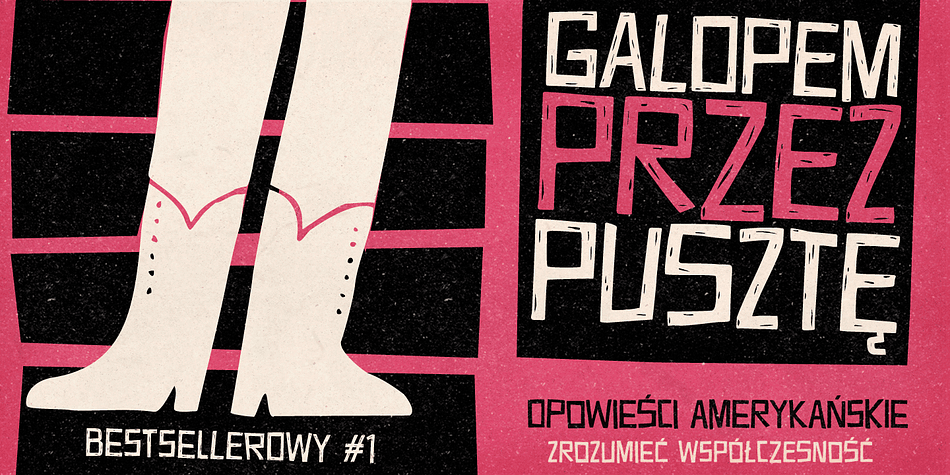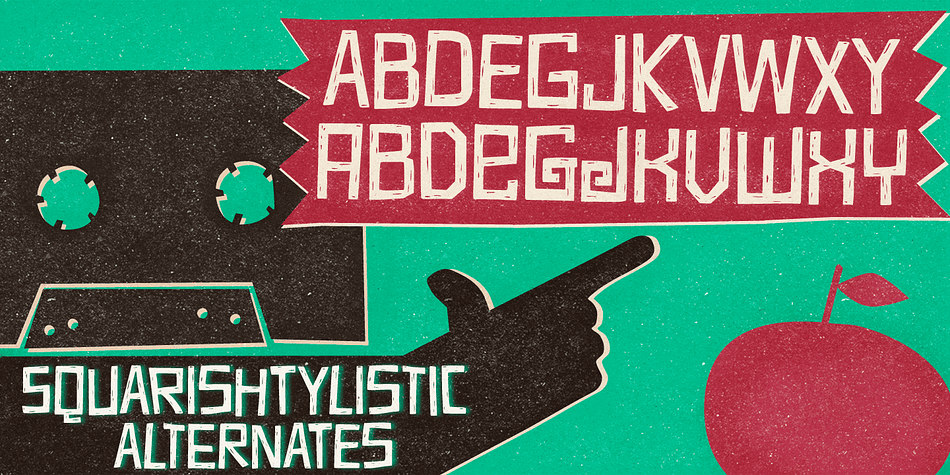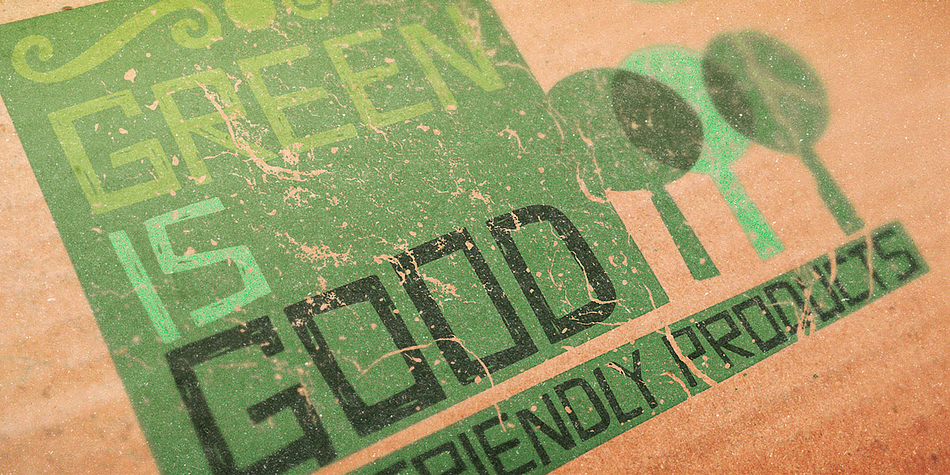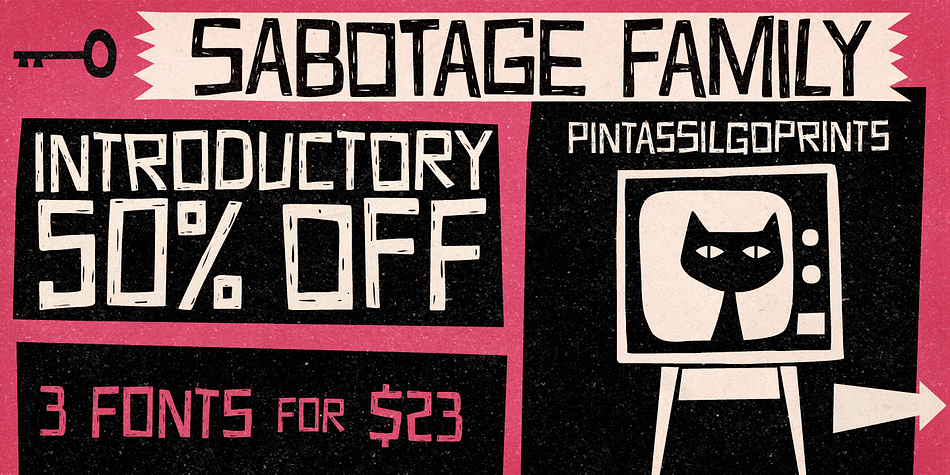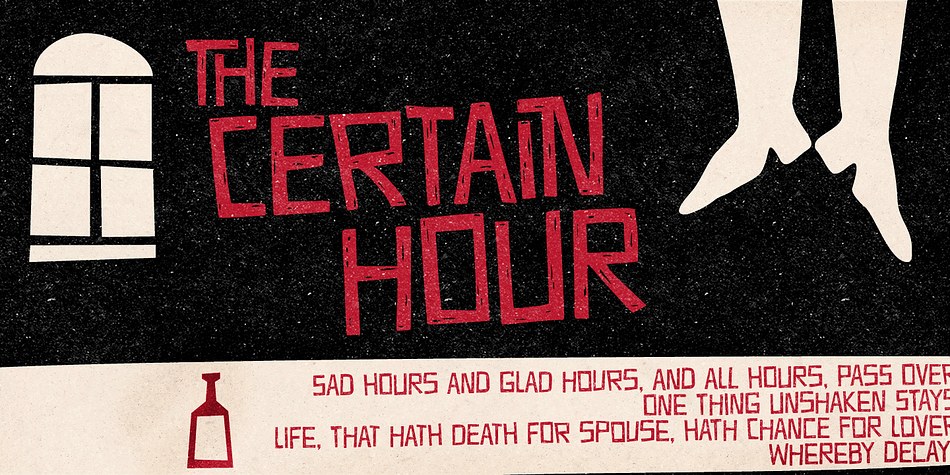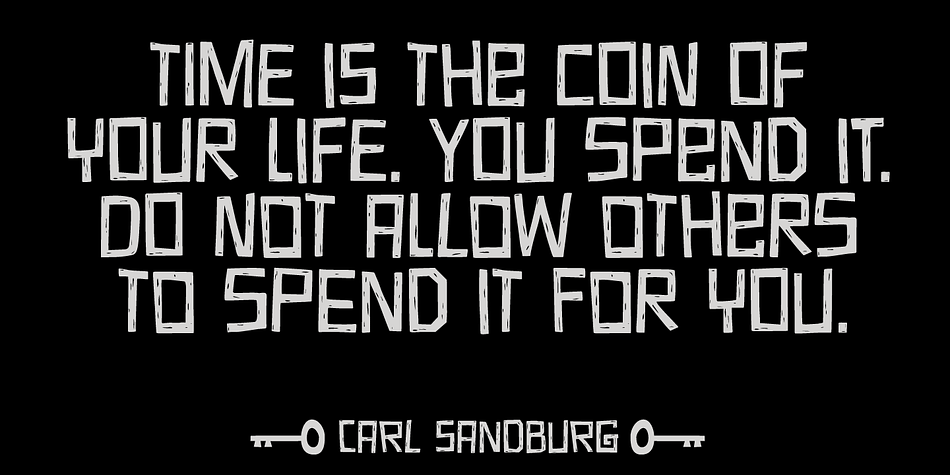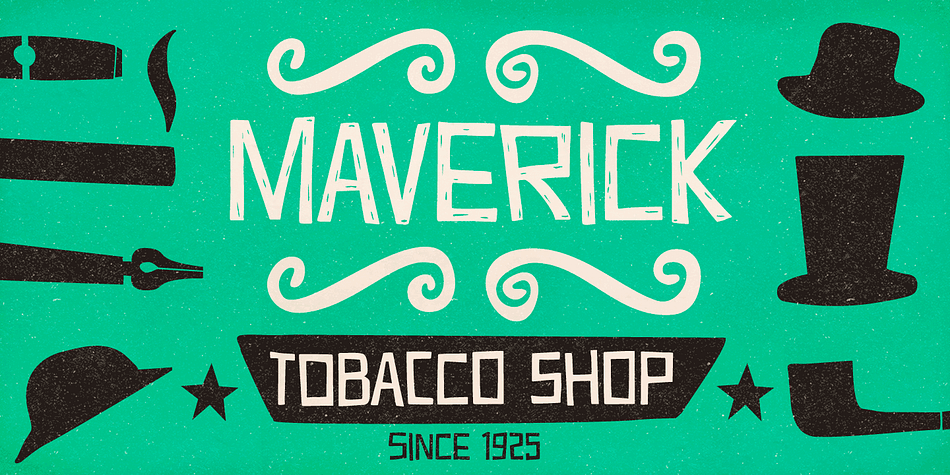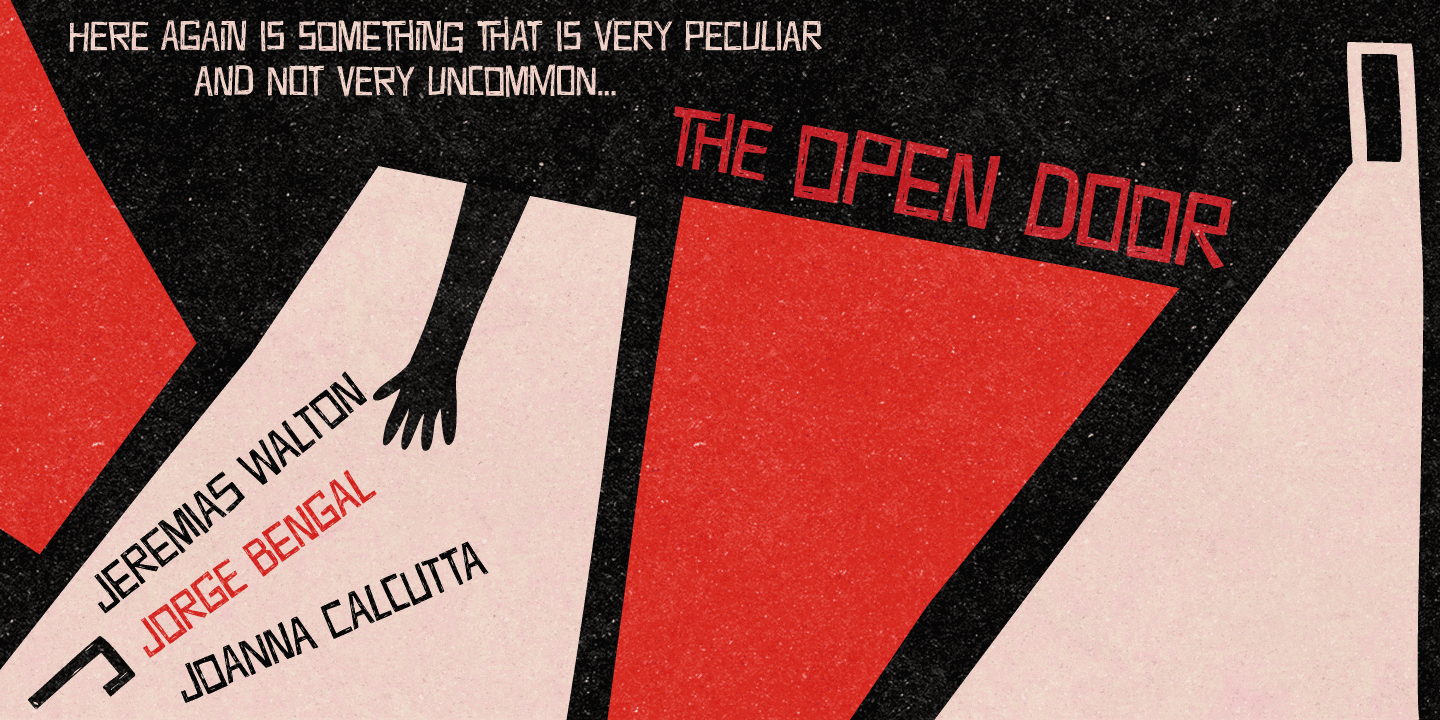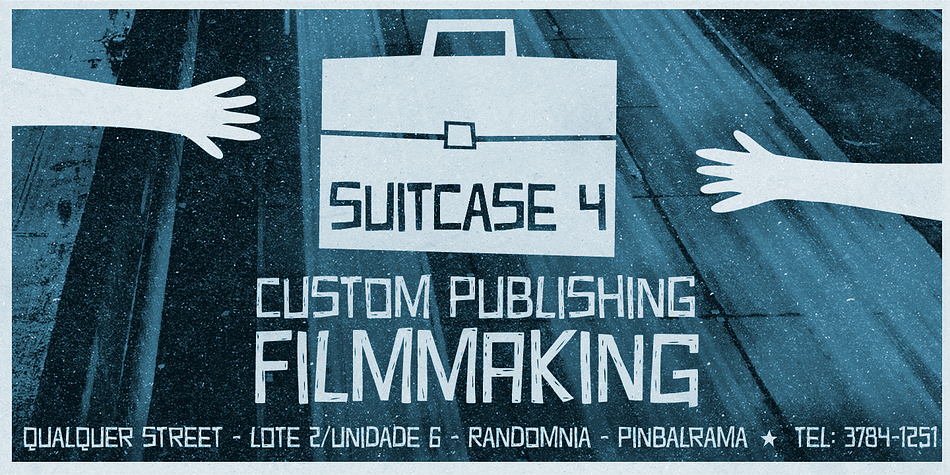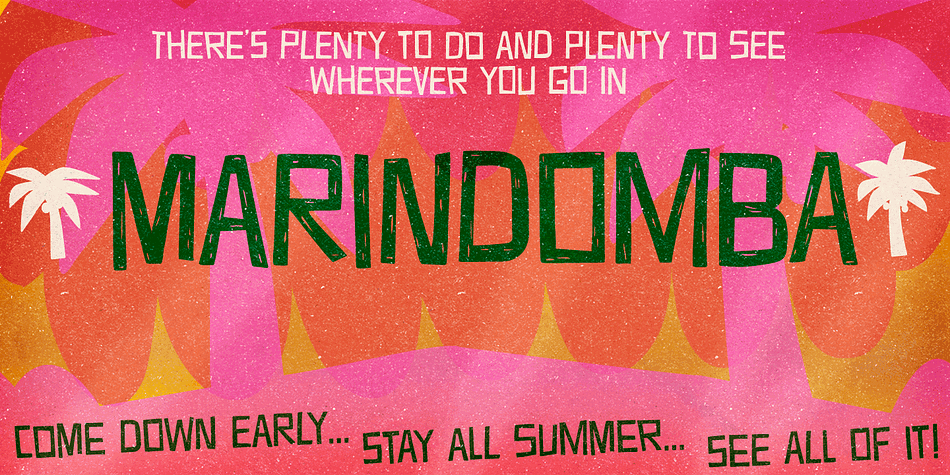
Sabotage is a dingbat and kids font family. This typeface has three styles and was published by PintassilgoPrints.
Sabotage is inspired on the iconic Vertigo movie poster by Saul Bass. It is a bold all-caps font that will fit surprisingly well a wide range of eye-catching design projects. Check it out!
Sabotage brings two versions for each letter, stored on upper- and lower-case slots. When turned on, its contextual alternates feature will instantly alternate these glyphs, preventing double letters from displaying the same letterform while boosting the nice handlettered feel of the typeface. The font is also loaded with a set of stylistic alternates and a couple of discretionary ligatures for even more flexibility.
Sabotage is available in 2 flavours, solid and not-that-solid. The family counts yet with a cool complementary picture font which sort of draws inspiration from the minimalistic - but always striking - Dick Bruna’s book cover illustrations.